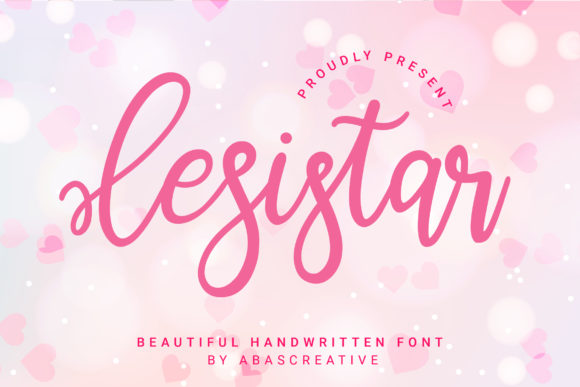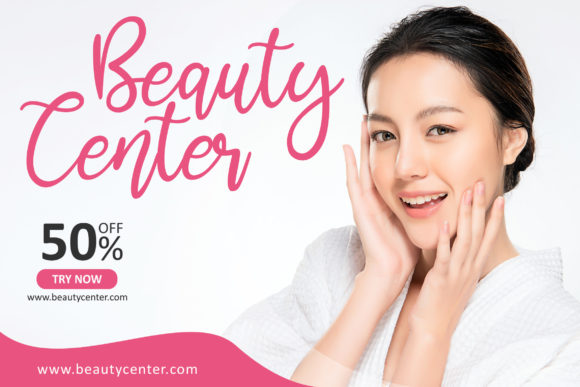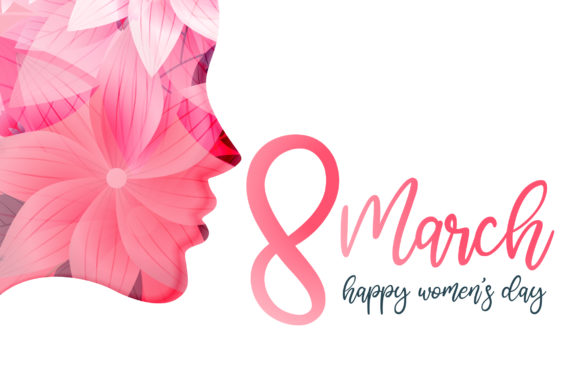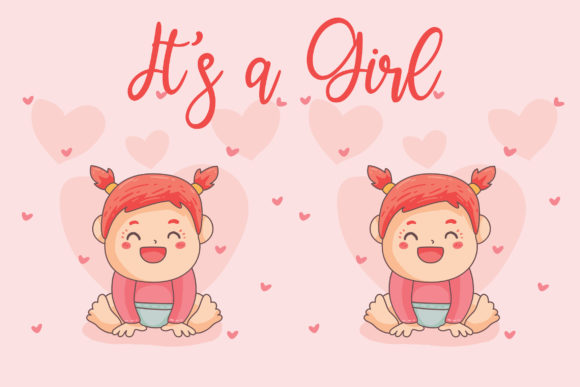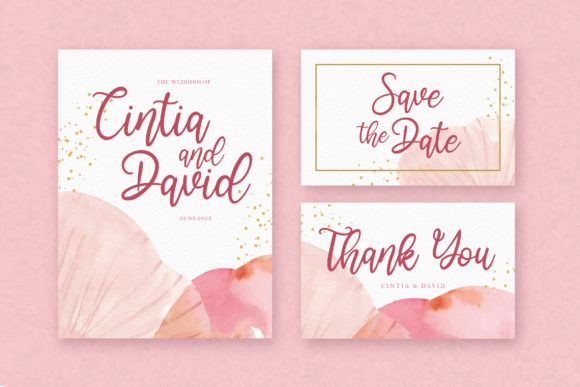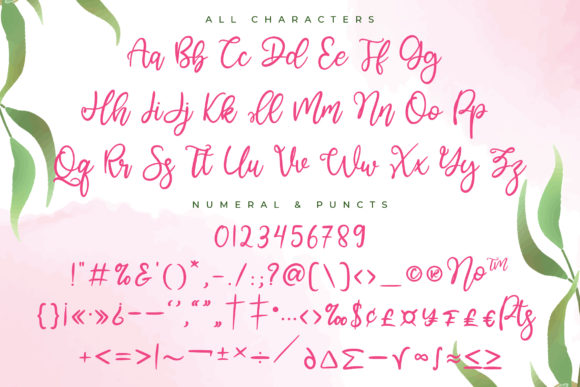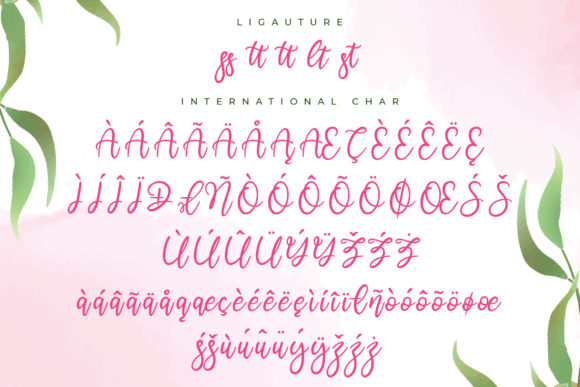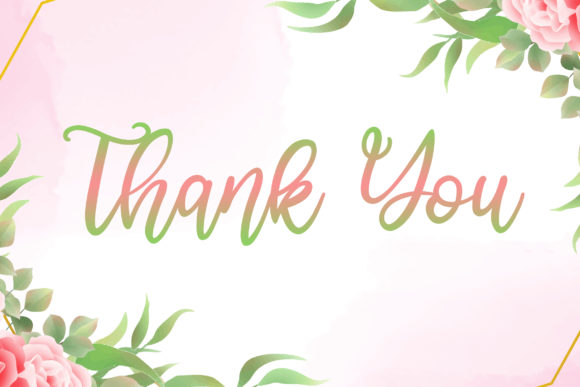
Lesistar Font
About Lesistar Font
Lesistar feels equally charming and sweet. This stunning handwritten font is a stylish homage to classic calligraphy. It features a varying baseline, smooth lines, gorgeous glyphs and stunning ligature. Get creative with its childlike playfulness, and use it to brighten up any kids and school project!